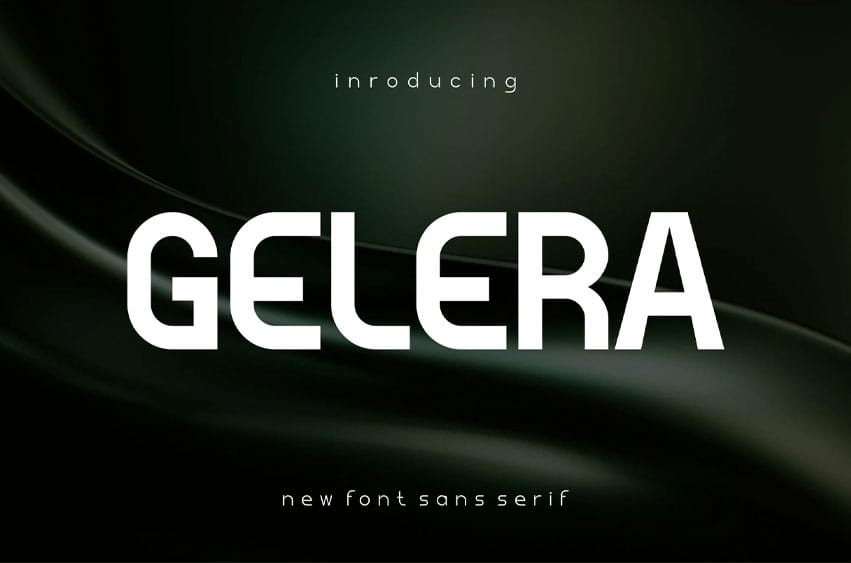
Gelera Font Sans Regular & Light is an awesome and authentic display font. It is suitable for flyers, posters, novels, letterheads, or any design requirements you want to be awesome.